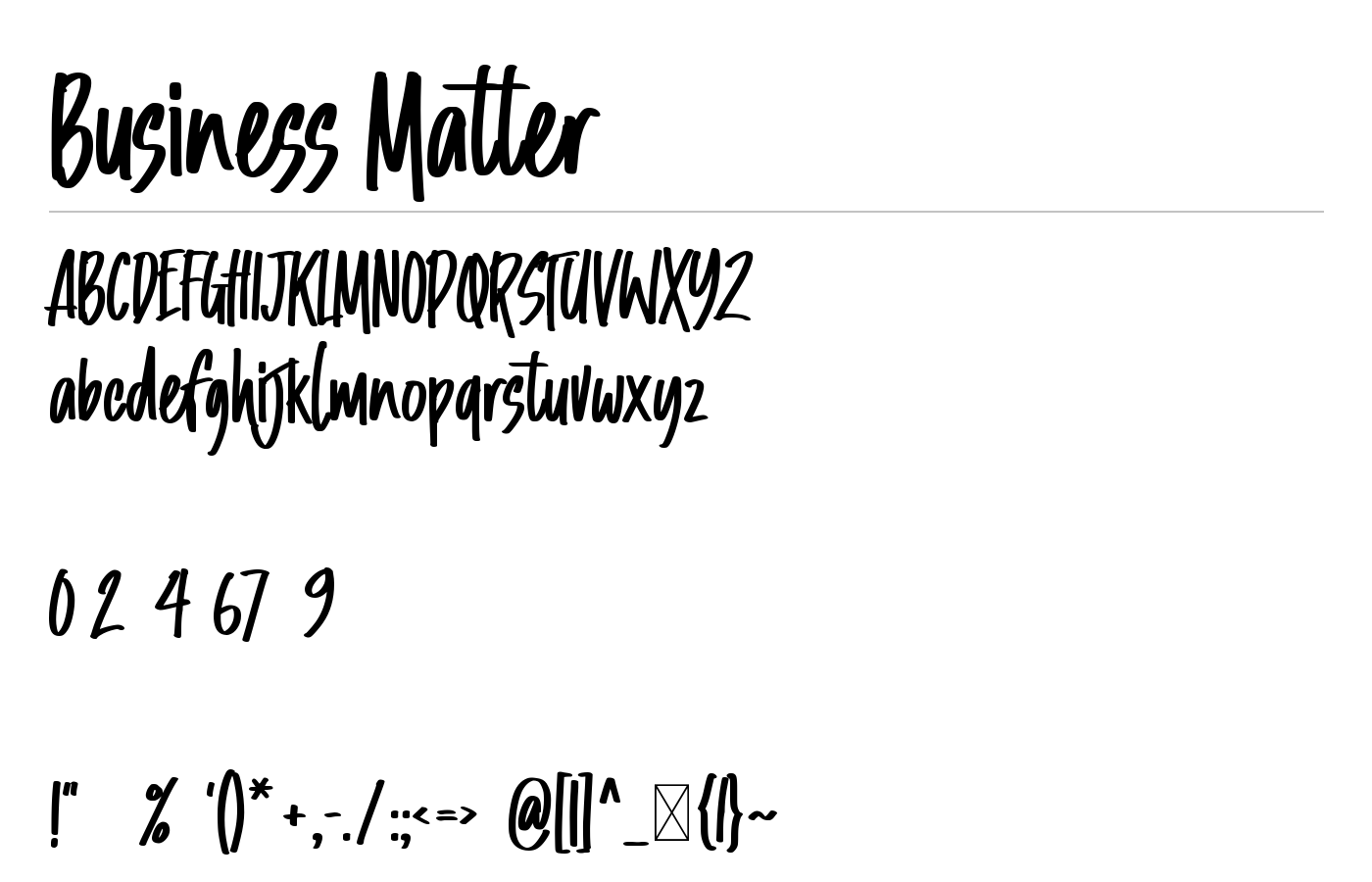
Business Matter is a lively handwritten script font with a tall, narrow structure and bold, brush-like strokes that give it a playful yet confident personality. Its casual, organic feel works wonderfully for creative branding, informal headlines, and personal projects where a distinct, approachable style is desired. This font shines in situations that need a modern, energetic touch without sacrificing readability.
Business Matter Font
About Business Matter Font
| Font family | Business Matter Font |
| Designer | Anang F & Malik Wsn | Gassstype© Studio 2021 |